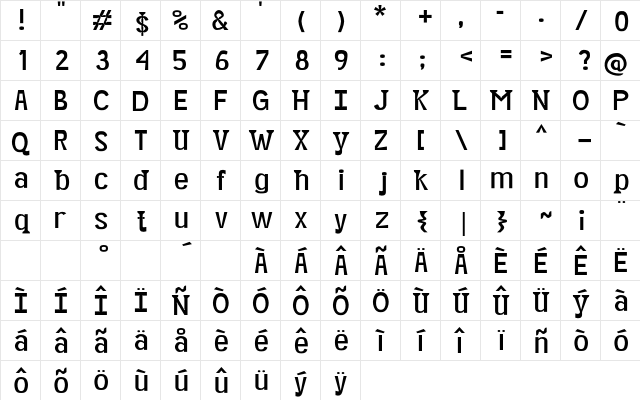
Minikin Medium
Design Context for Minikin Typeface
Minikin is a composed and adaptable typeface that performs quietly and consistently across a wide range of design contexts.
Pro Tip: Pair Minikin with a font of contrasting weight or personality to build a more expressive typographic hierarchy.